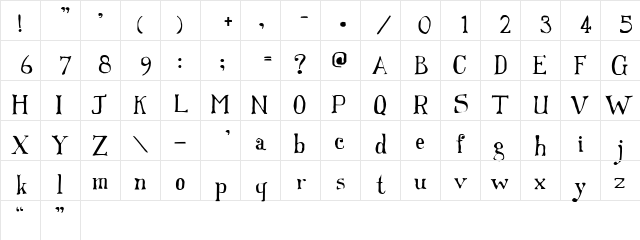
Franks Regular
Design Context for Franks Typeface
Franks takes a measured approach to typography — its balanced proportions and neutral character make it a reliable workhorse for both digital and print work.
Pro Tip: Use Franks in both headline and body roles to test its range before committing to a single application.